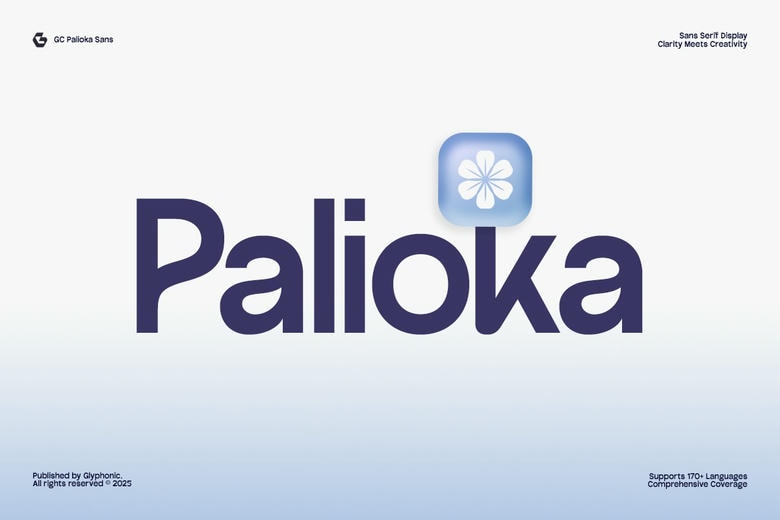
GC Palioka Font
Gc Palioka Font
GC Palioka is a luxury sans serif typeface, a typeface that brings a new harmony between the austerity and glamour of modernity. The GC Palioka font was designed to be light and soft with clean geometrical lines to give it a modern feel but at the same time, the font is versatile and easie to use. Make the project make more sense and sound, and its font is ideal to brand, build editorial layouts, digital interfaces, and creative displays.
In the long lines and smooth curves of GC Palioka, as well as its extended forms, we find a feeling of professionalism and expression. This typeface adds class and timeliness to your design be it bold headlines, sleek packaging or a few images.
GC Palioka Sans Serif Font